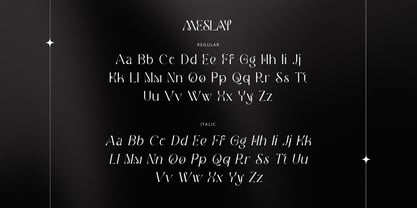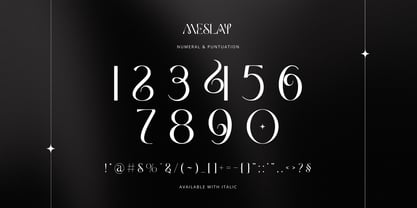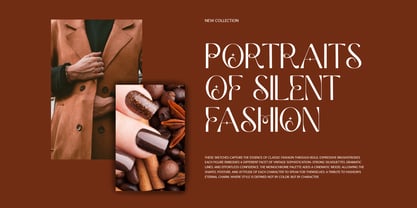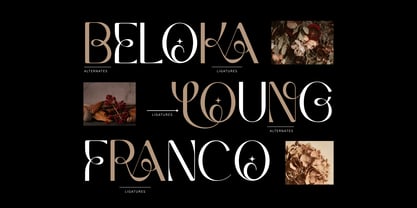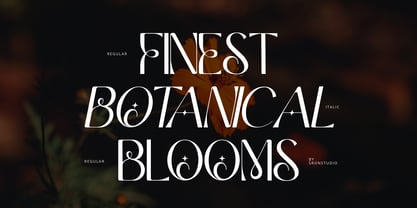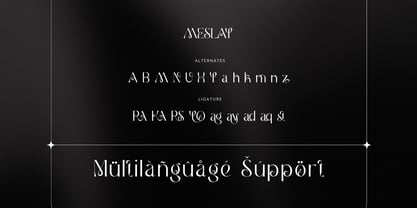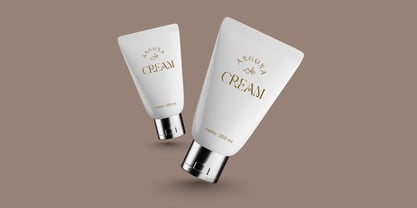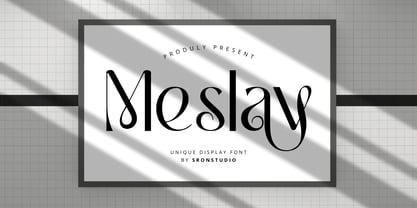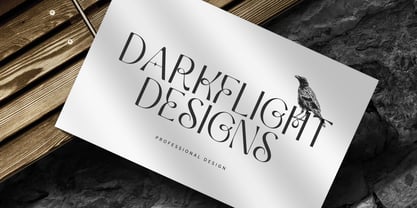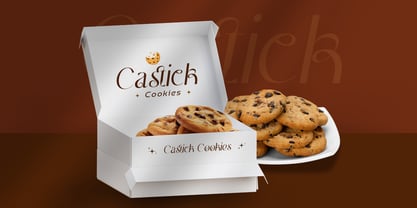
Meslay
by Sronstudio
The Meslay Font Family was designed by Muhamad Yusron Billah and published by Sronstudio. Meslay contains 2 styles and family package options. More about this family
Meslay is a unique display font designed to stand out with bold personality and distinctive character. Featuring creative letterforms and eye-catching shapes, this font is perfect for branding, posters, headlines, logos, and experimental designs. Meslay brings originality and flair to your typography, making every word feel expressive and memorable. What’s Included: - Regular & Italic styles - Alternates & ligatures - Numerals & punctuation - PUA encoded for easy access - Multilingual support - Works seamlessly on Mac & Windows Thank you very much 🙂